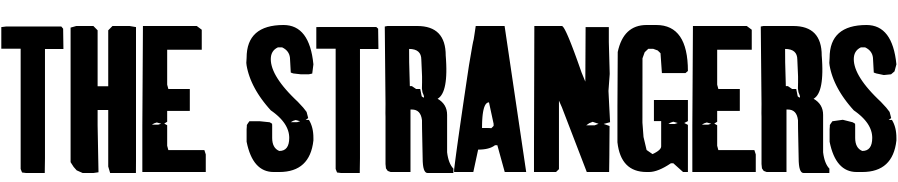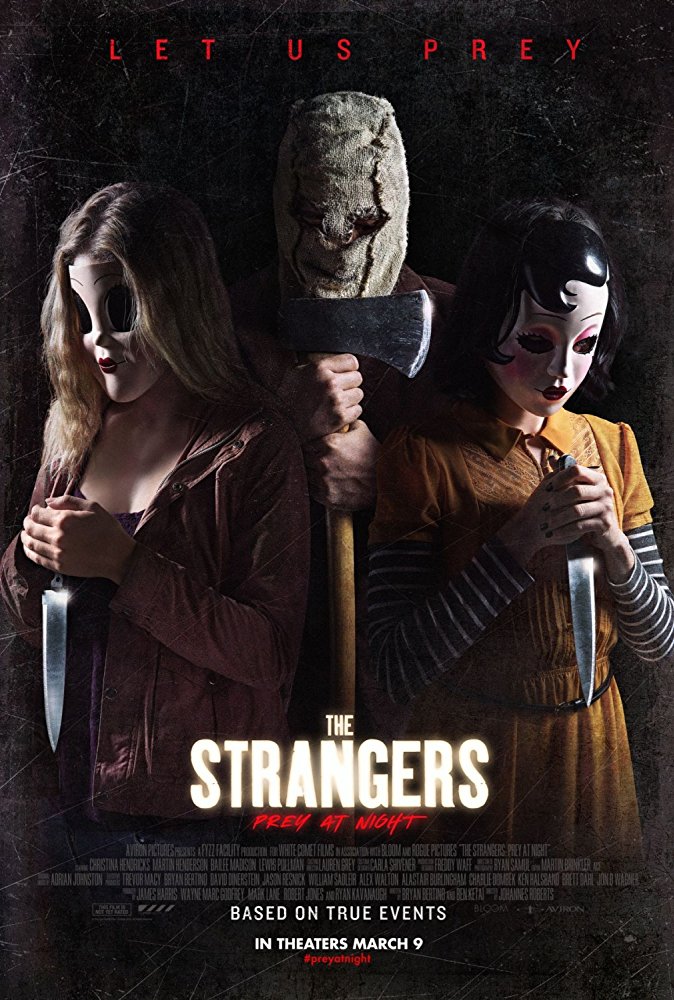
The Strangers Prey at Night Font
FamilyThe Strangers: Prey at Night is a 2018 horror film that follows a family on a road trip who become the targets of three masked killers. The movie is a sequel to the 2008 film "The Strangers" and features intense suspense, jump scares, and a thrilling soundtrack.
A font named BecauseYouWereHome was designed by Mawhrt for free, taking inspiration from the main title on the poster. Meanwhile, the brush script used for the subtitle bears a resemblance to Sam Parrett's Hyperwave Marker.